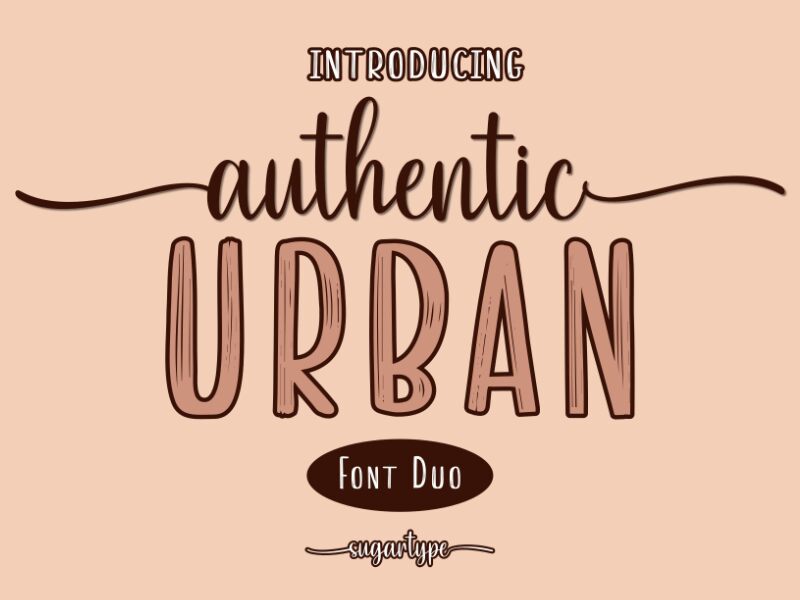
Authentic Urban Sans, designed by Sugartype, is a captivating handwritten font with a condensed width. Its distinctive style lends itself perfectly to diverse projects that require an urban edge and a touch of authenticity.
This block letter, all caps font brings a contemporary feel to logos, album covers, and streetwear branding. With its sans serif design, Authentic Urban Sans adds personality and character to posters, social media graphics, and advertising campaigns.
Discover the power of this unique typeface in capturing attention and creating memorable designs with an urban flair.